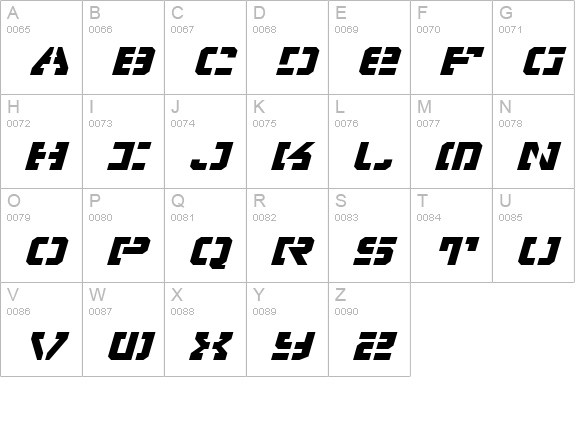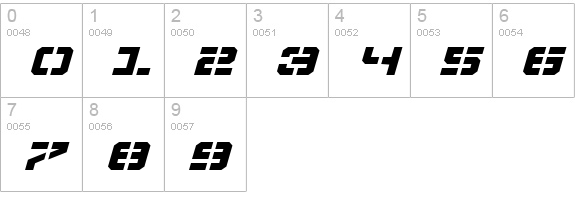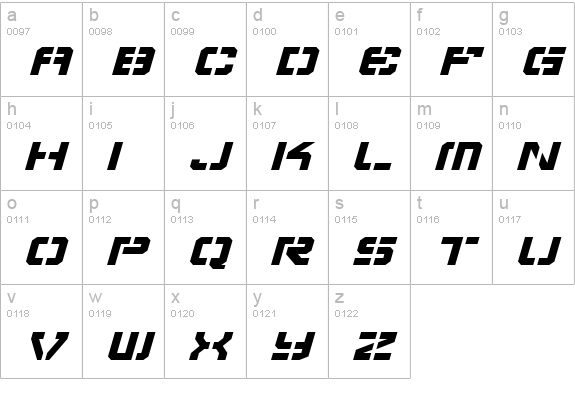
Vyper Expanded Italic Font Details
Vyper Expanded Italic is a distinctive, extended-width, italic variant in the Vyper typeface family \xE2\x80\x94 well suited to design and typography projects.
Vyper Expanded Italic font is a striking and elegant typeface that exudes sophistication and modernity. The italicized design adds a touch of flair and style to any project, making it perfect for branding, advertising, and editorial purposes. The Vyper Expanded Italic font features sleek lines and a unique, contemporary look that will make your text stand out. This font is not only visually appealing but also highly versatile, making it suitable for a wide range of design applications. Whether you're creating a logo, poster, website, or any other graphic design project, Vyper Expanded Italic font will elevate your work to the next level. Best of all, this font is available for free download at FontsMarket.com. You can easily access this stylish typeface and incorporate it into your projects without any cost. Don't miss out on the opportunity to enhance your designs with the modern and sophisticated Vyper Expanded Italic font.